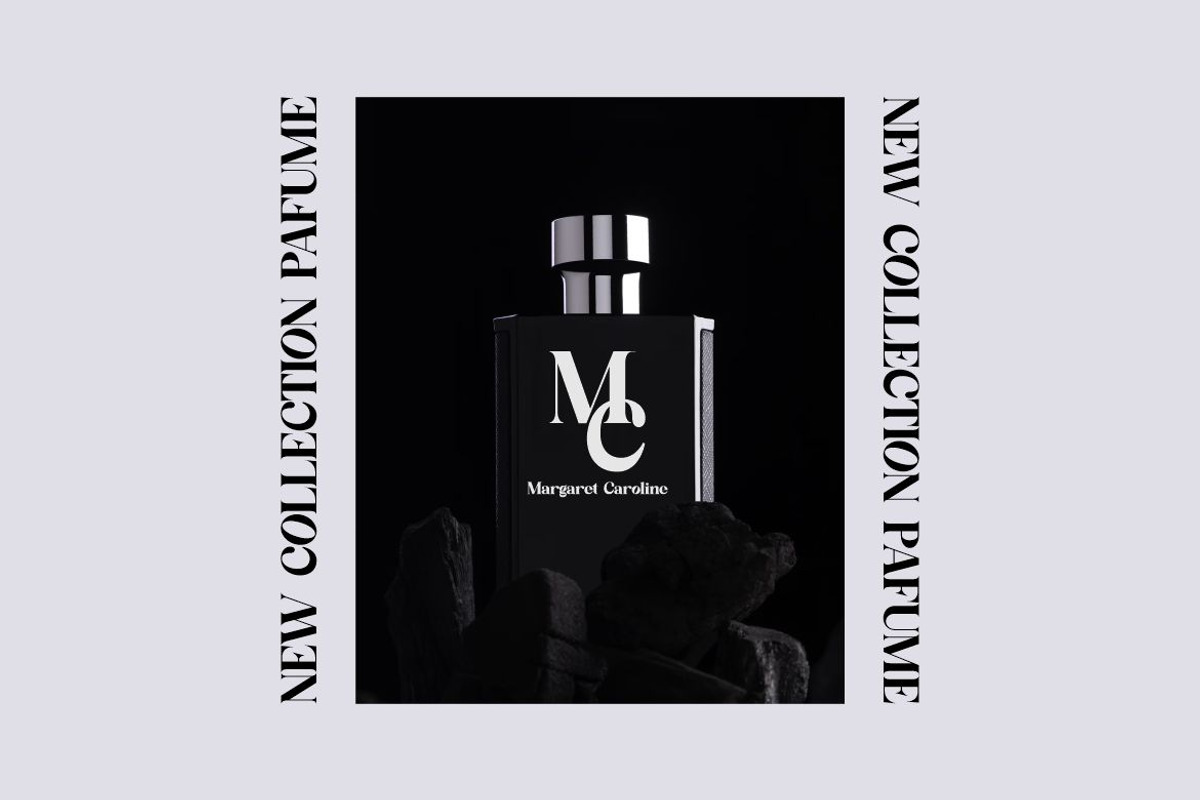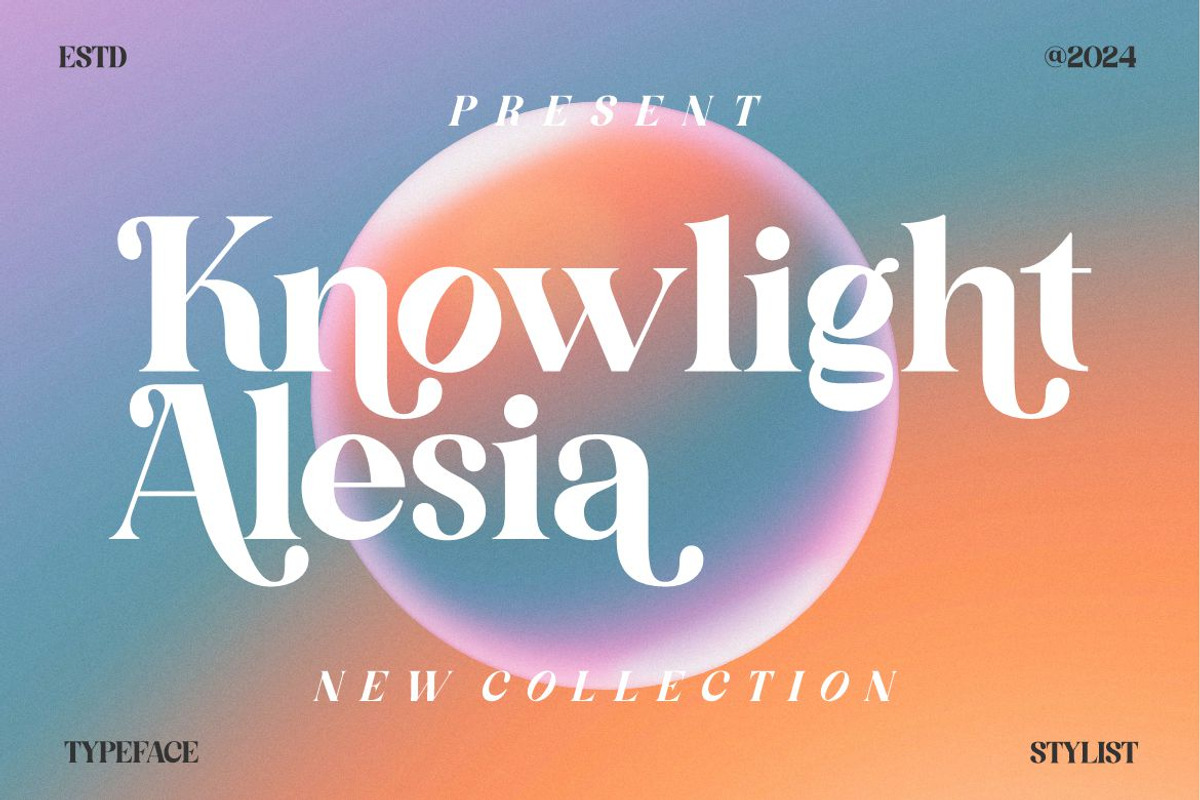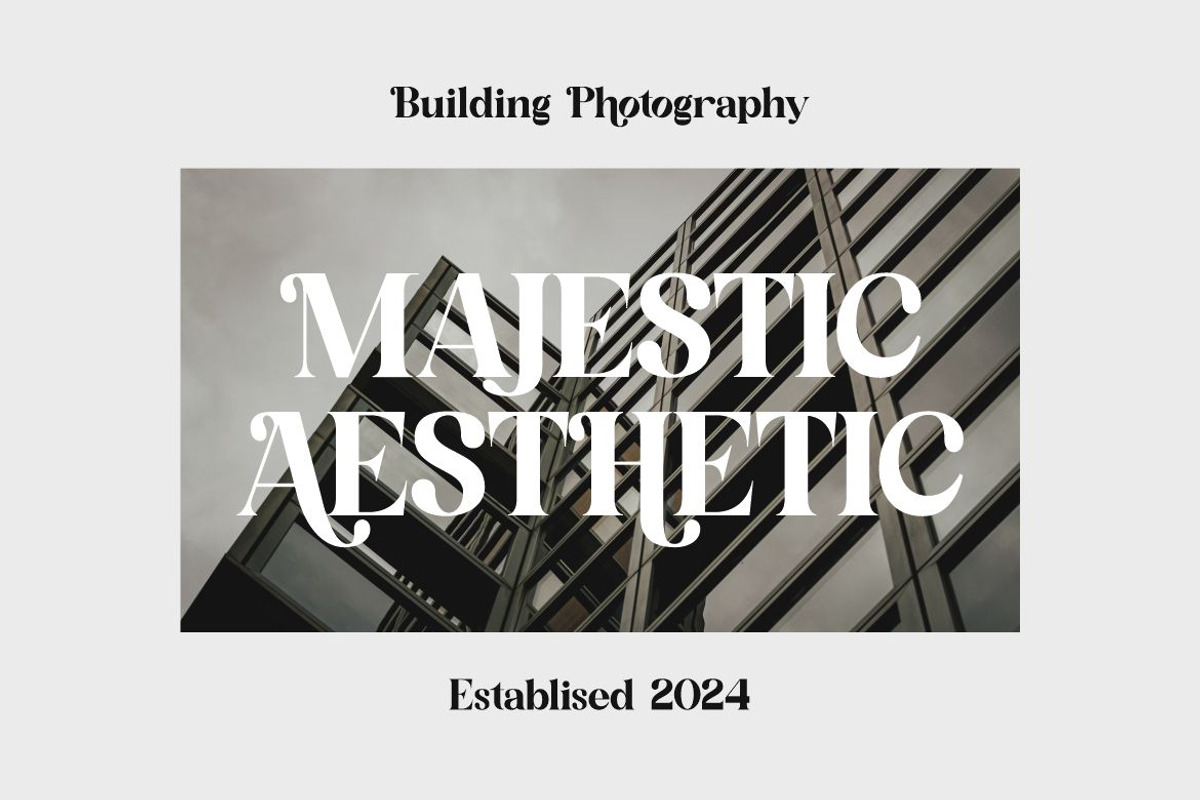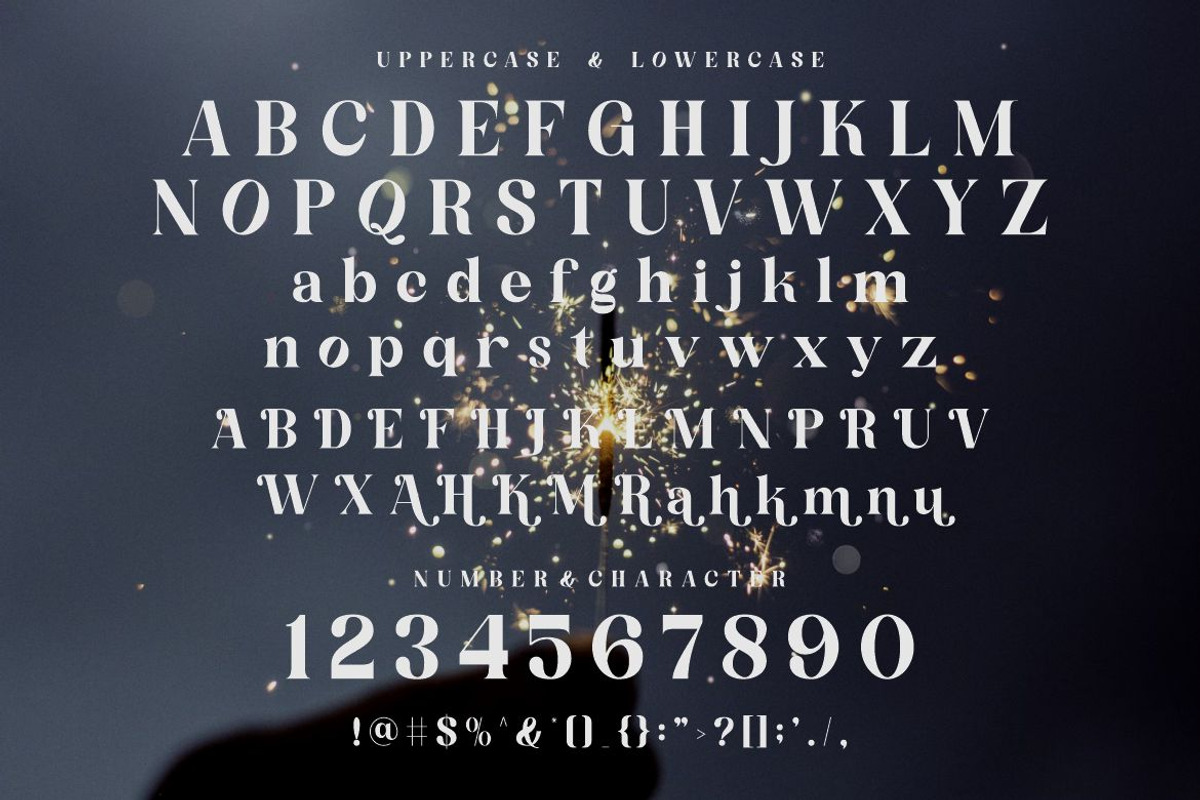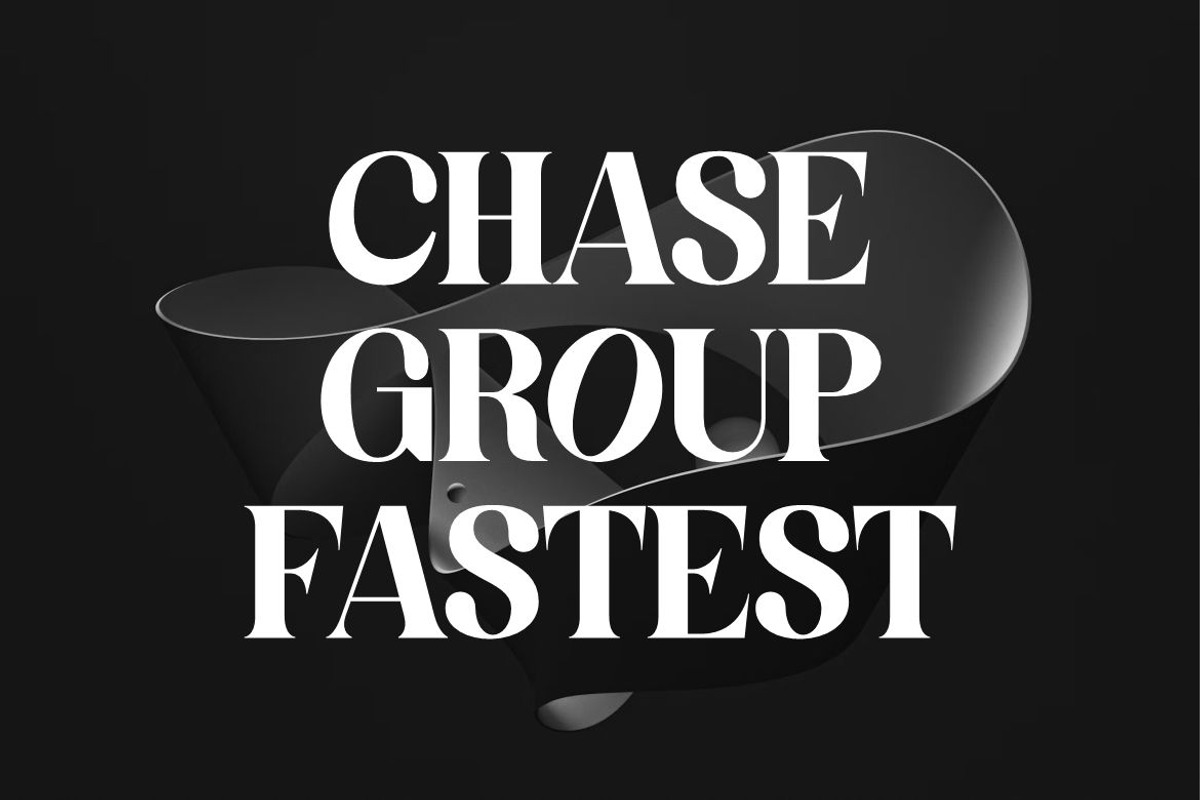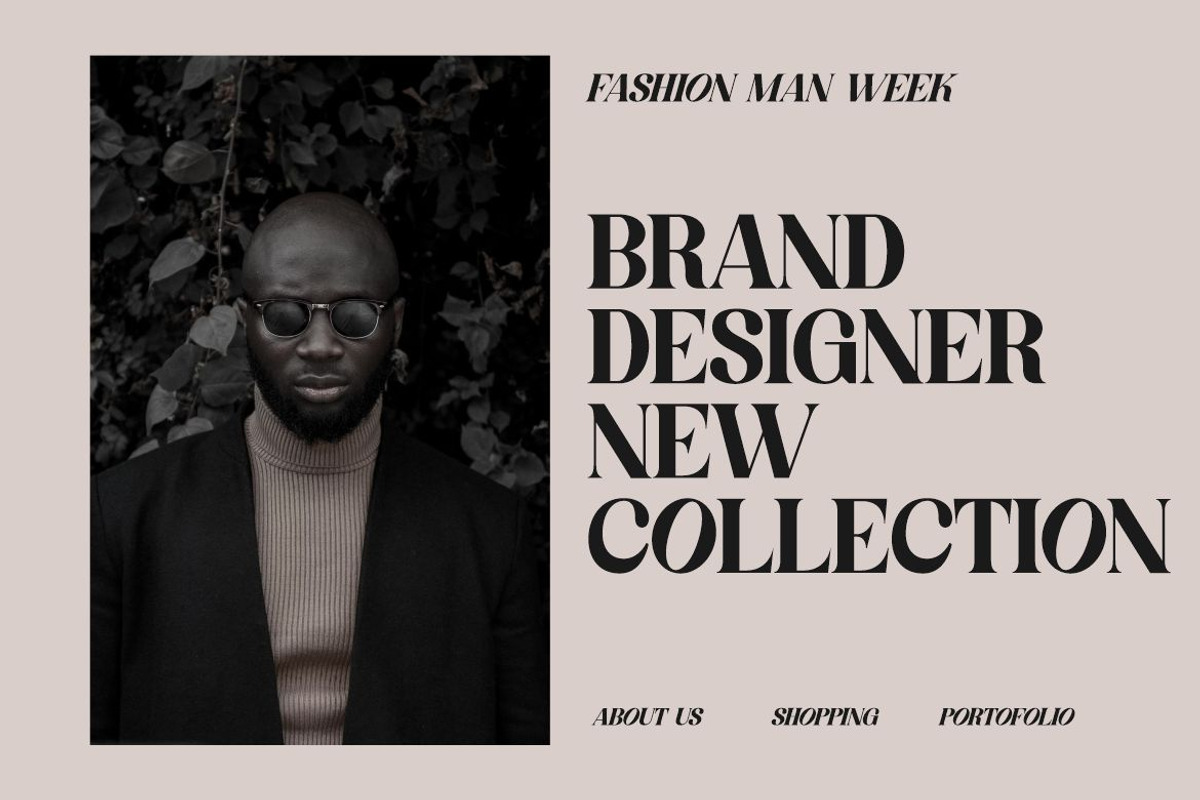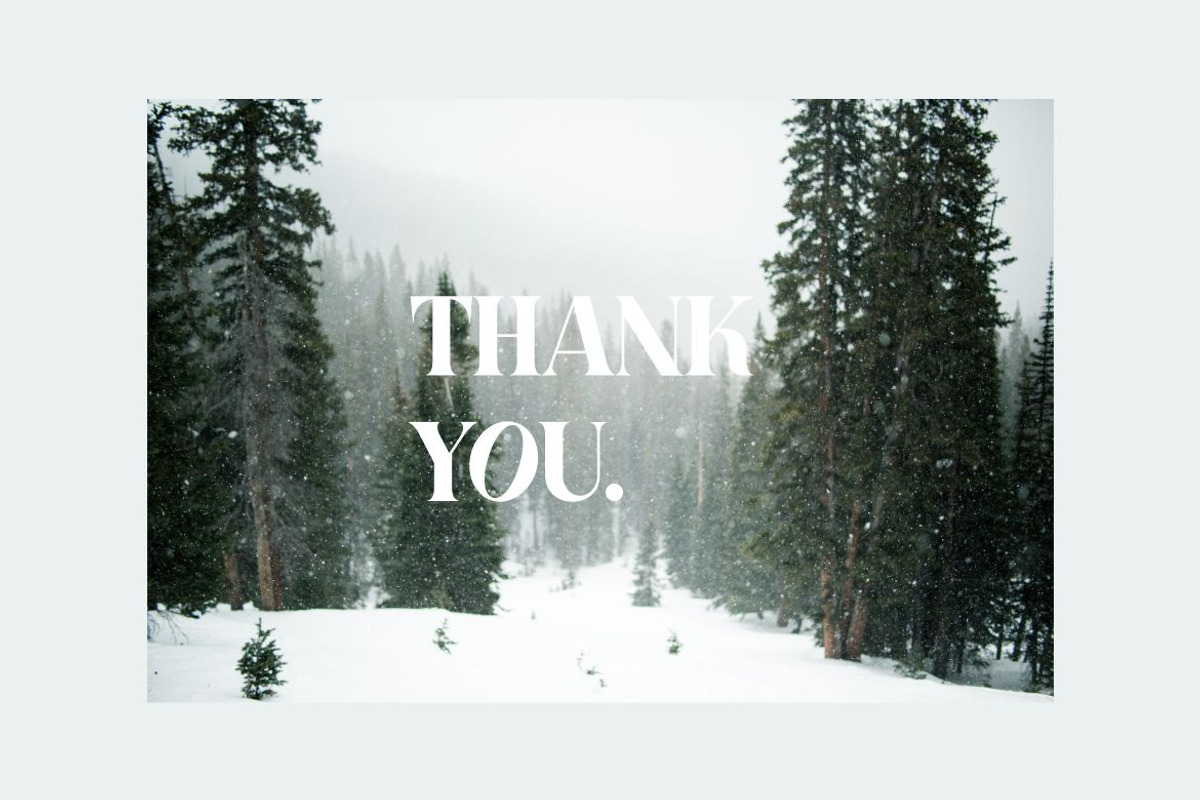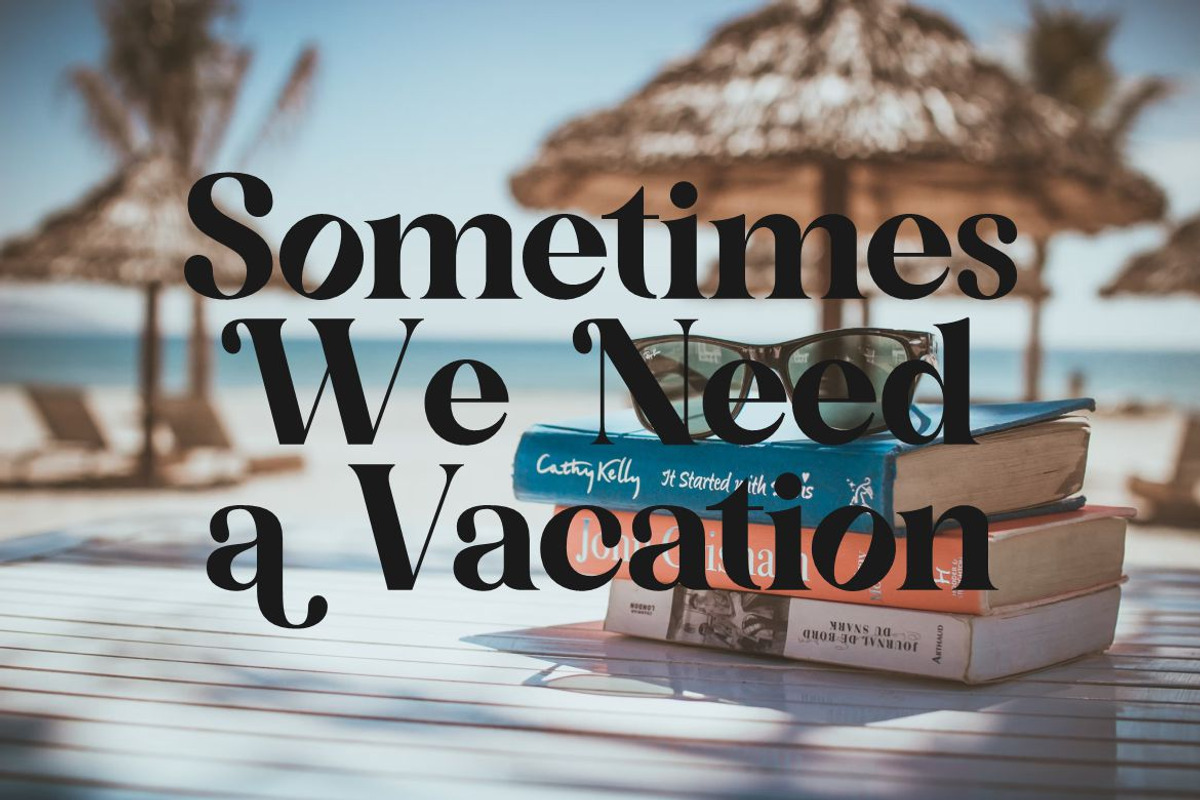
Knowlight Alensia
Knowlight Alensia Font is a stylish font It has both modern and retro look. Comes with alternatives and ligatures, helps to create stunning logos, quotes, posts, blog posts. branding projects, magazine imagery, wedding invitations, and much more.